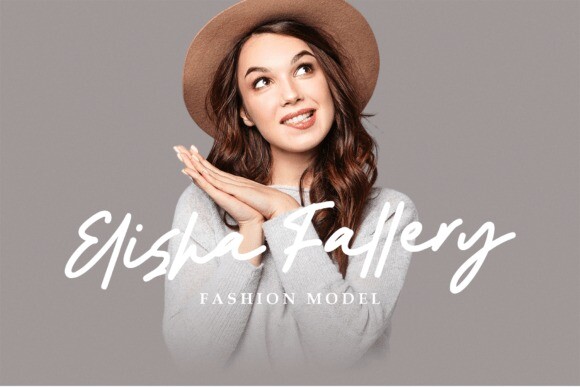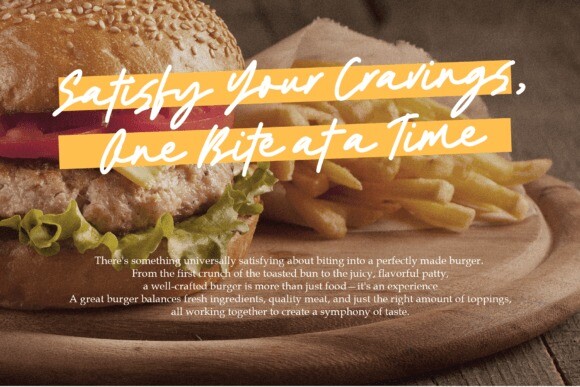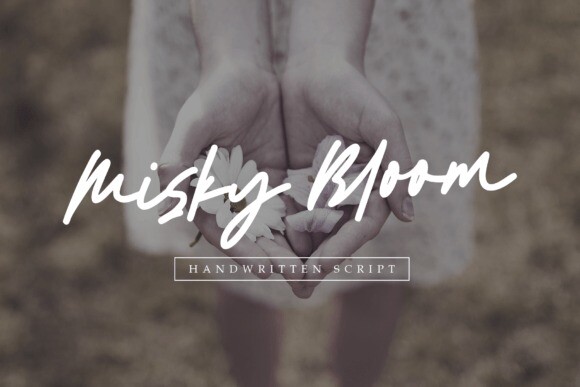
Misky Bloom Font
Designer: MJB Letters
Misky Bloom Font is a charming handwritten script font that radiates casual elegance with a touch of cuteness. Its natural flow and playful character make it a perfect choice for logos, fashion projects, branding, packaging, posters, quotes, weddings, and more.
This font is designed to bring warmth and personality to your creative work. With features like ligatures and full PUA encoding, Misky Bloom offers flexibility in design, allowing you to craft unique and memorable visuals.